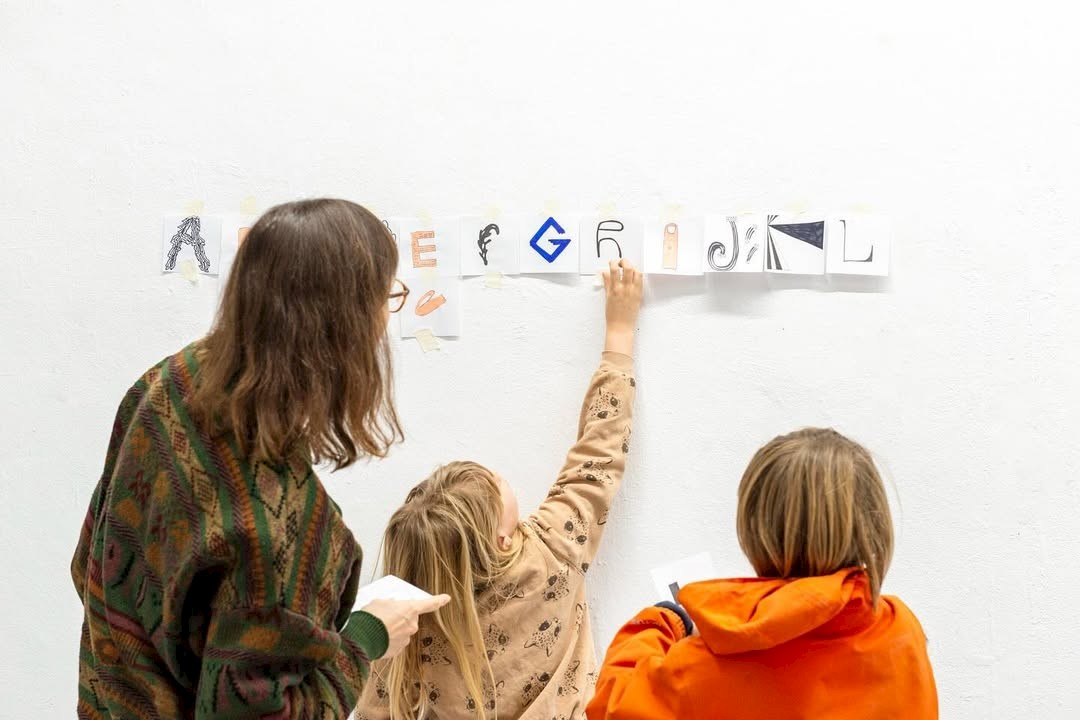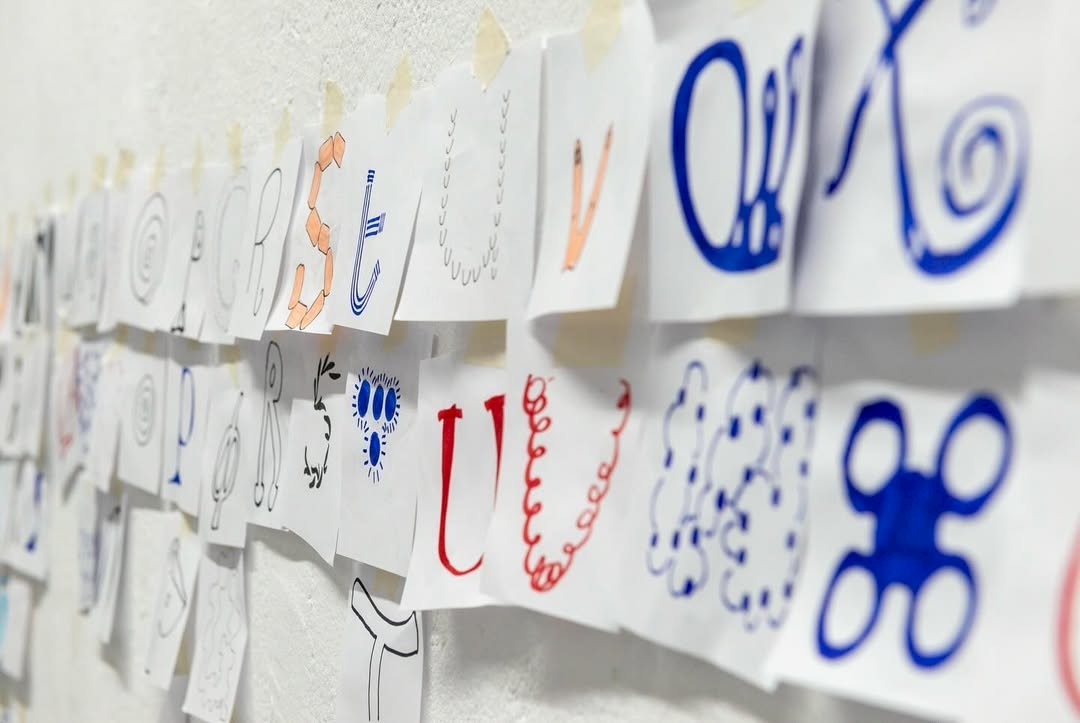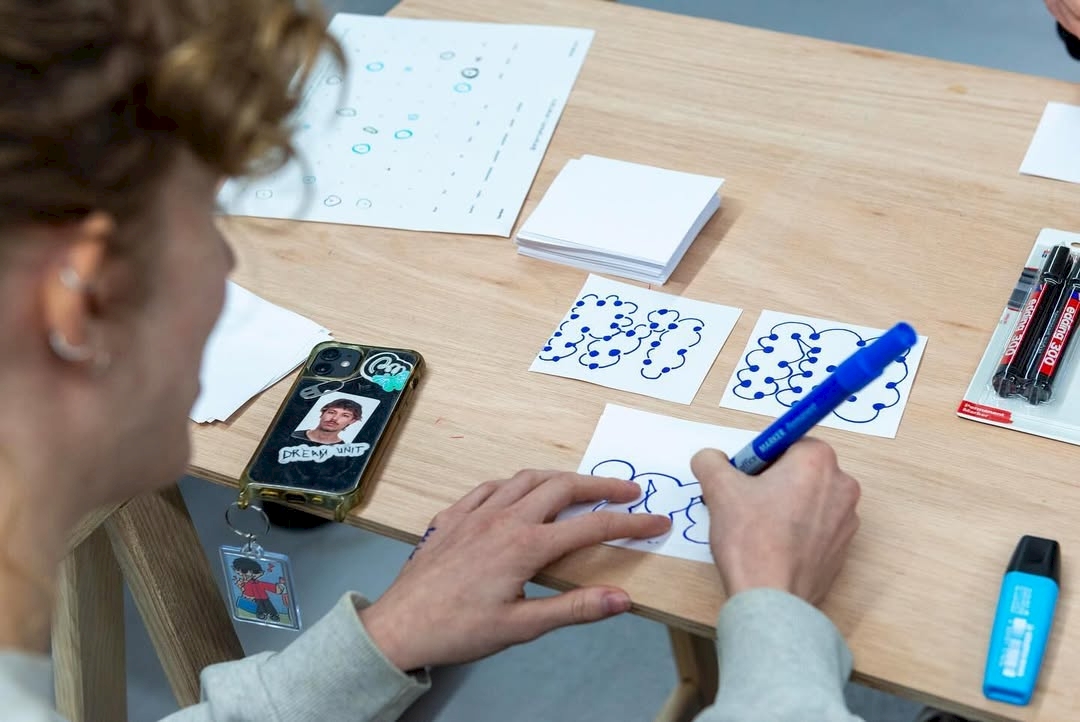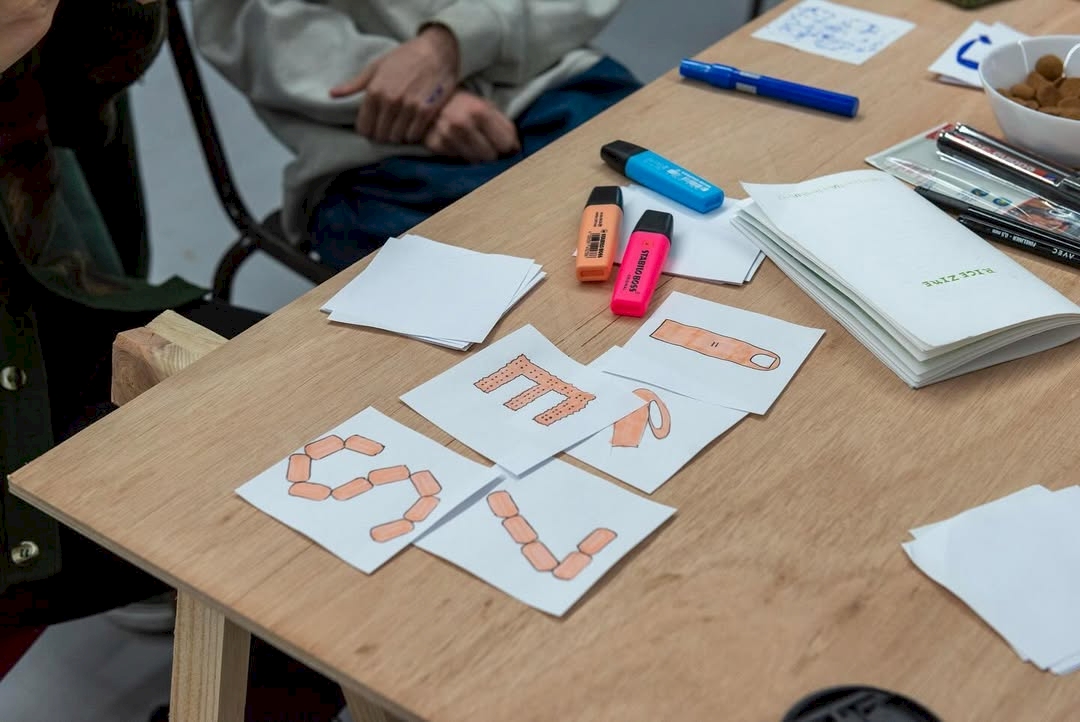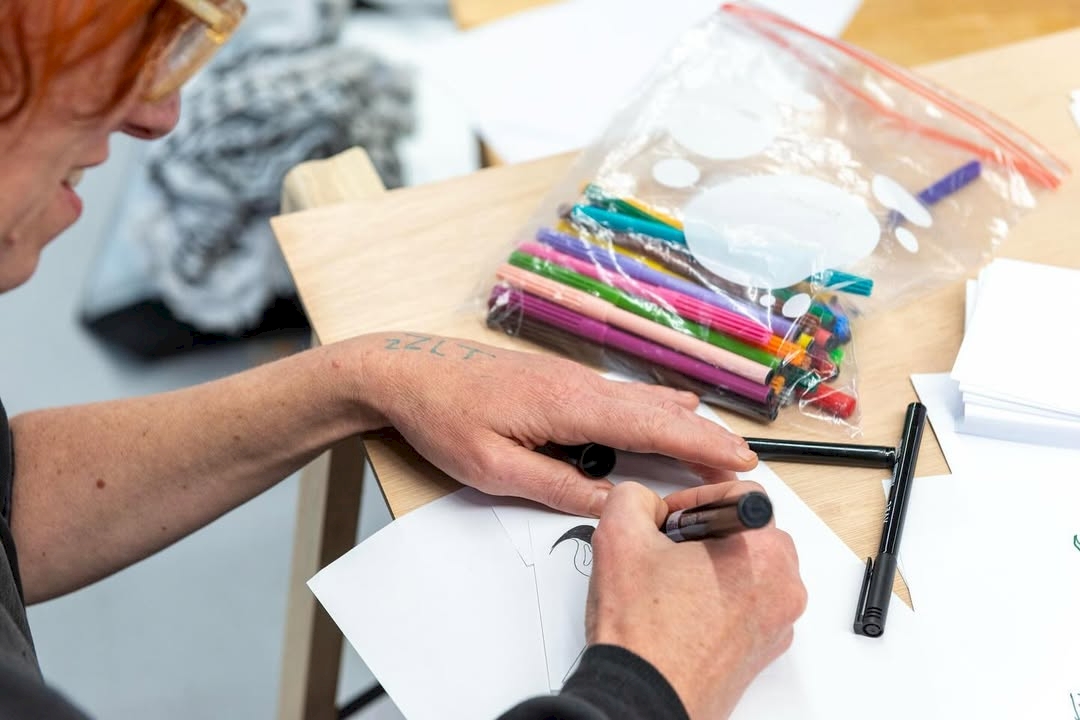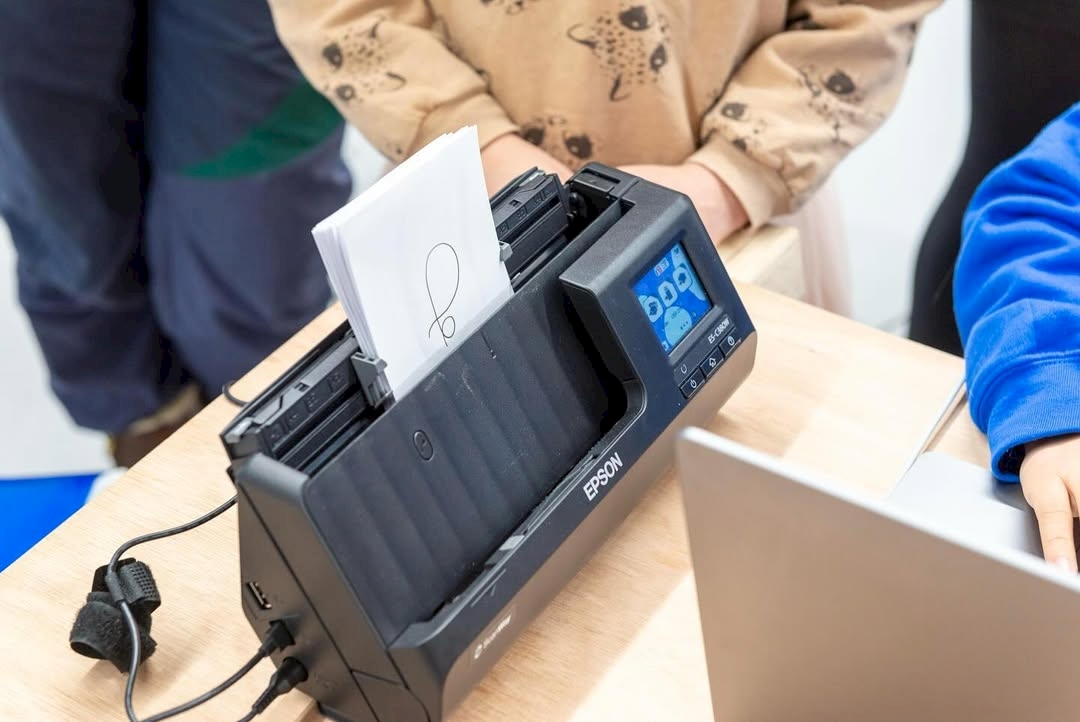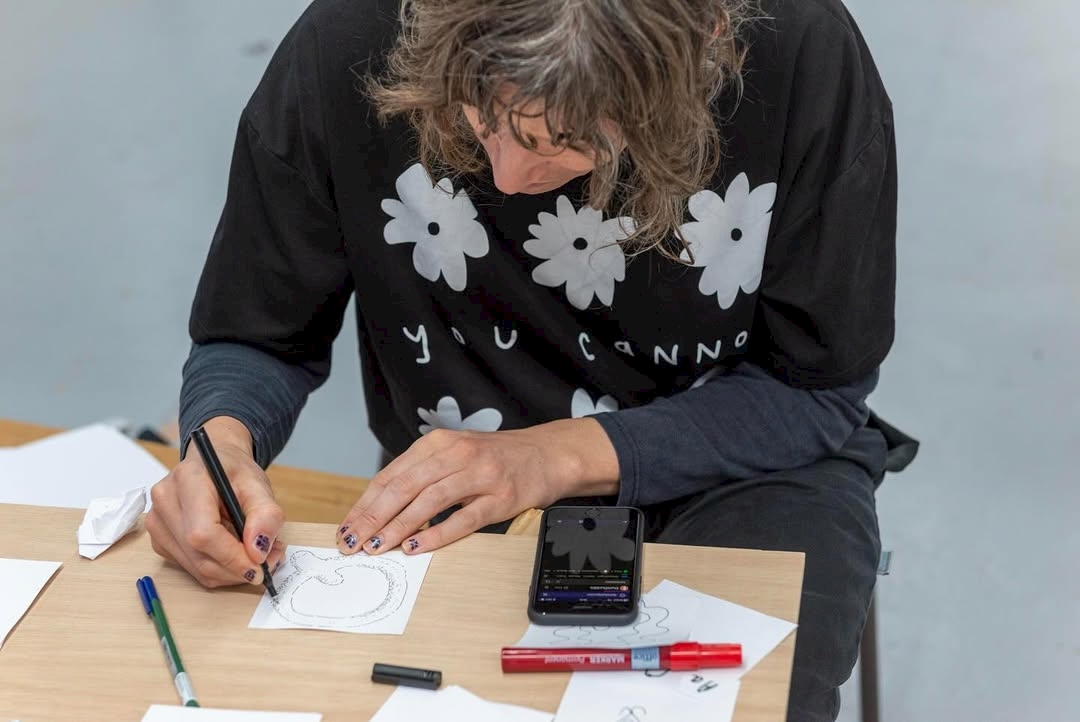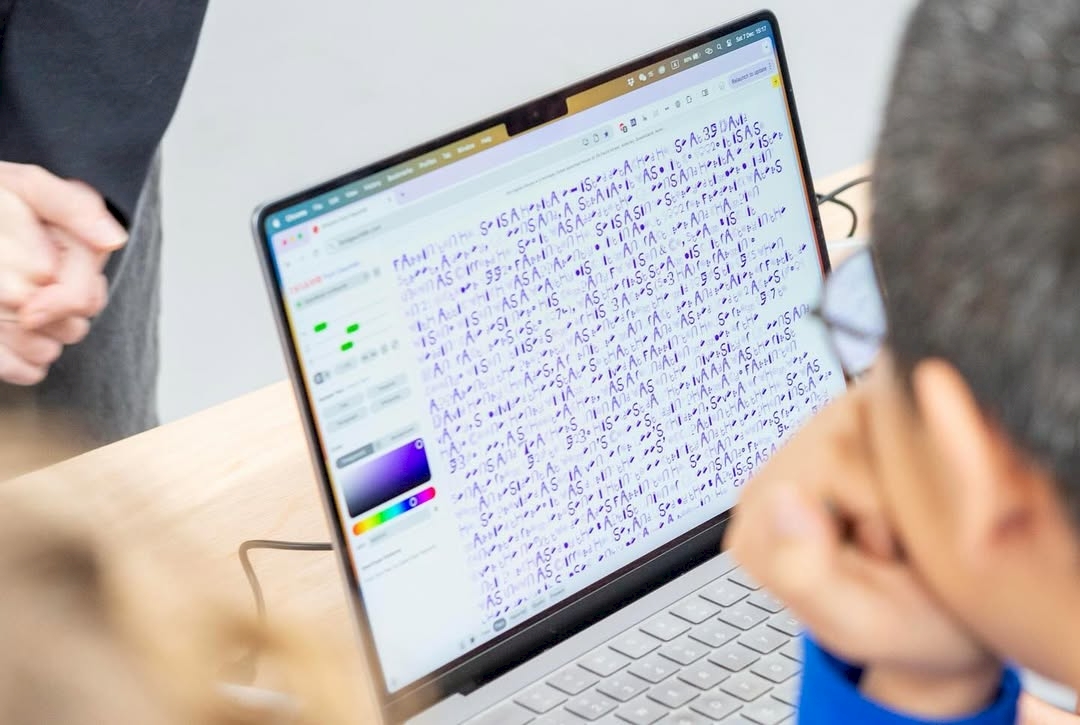
"OpenBoek" was a type-drawing workshop hosted by Xiaoyuan Gao at ClubSolo on December 7th. During the workshop the participants select and draw all the letters as the way they wanted to, there is no further instruction on how to draw, as the whole workshop is to embrace the freeform of drawing letters instead of following the classic rules of drawing letters. Later on Xiaoyuan vectorize the drawings into svg and imported them into Glyphs App, and finally export it as a font file — "OpenBoek-notRegular.otf".